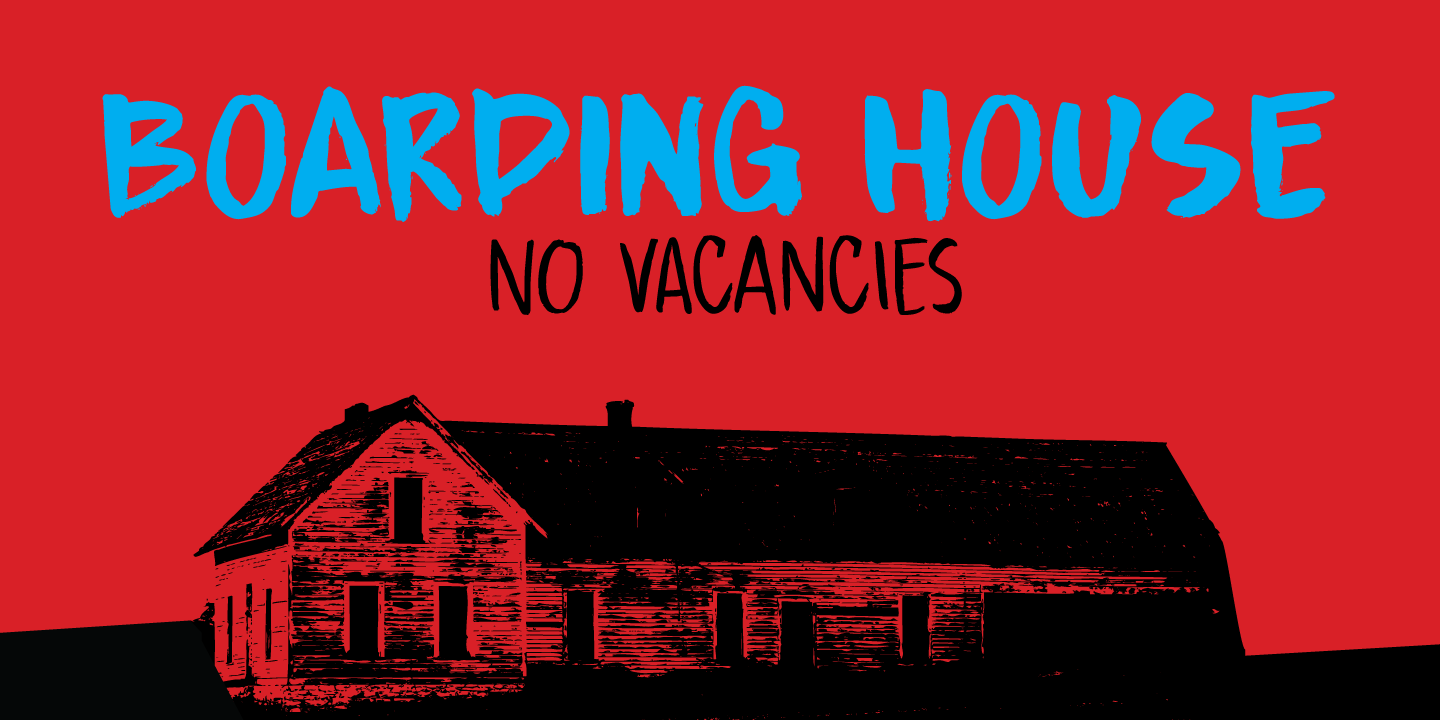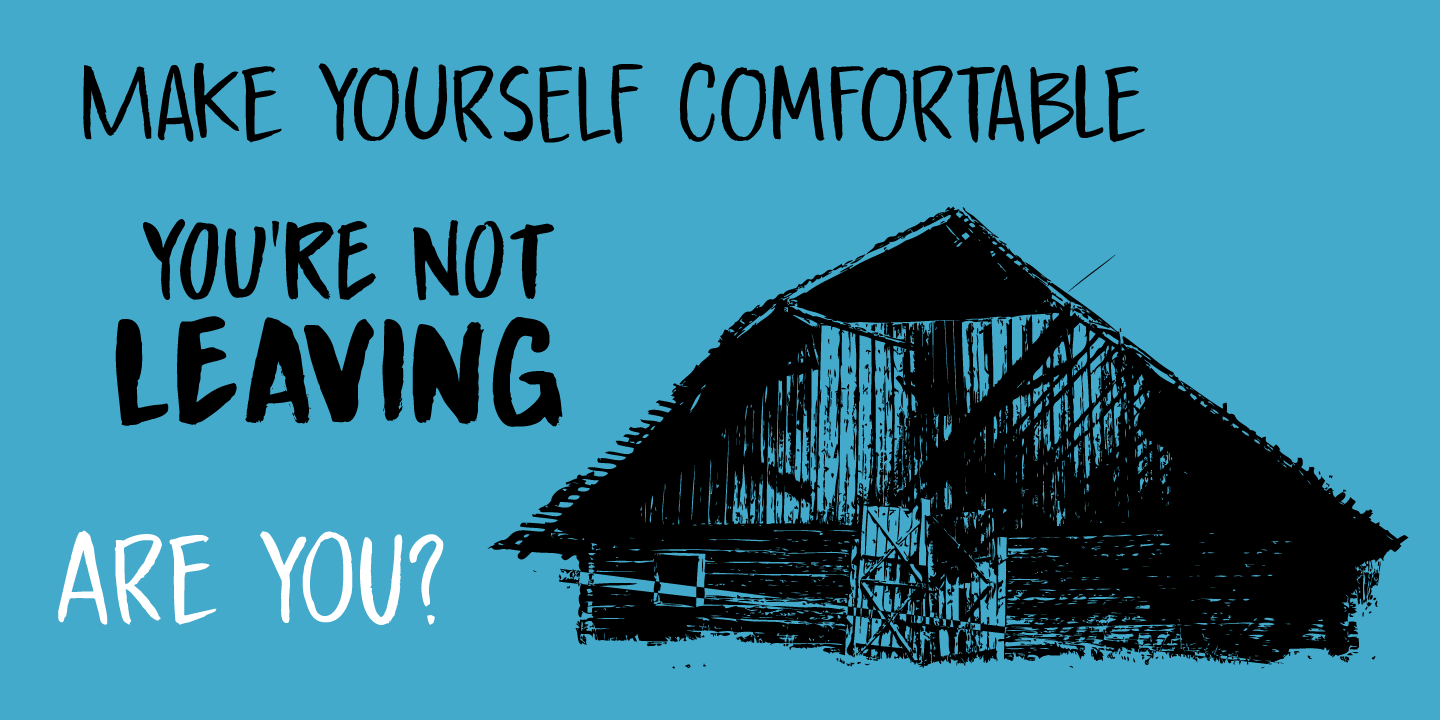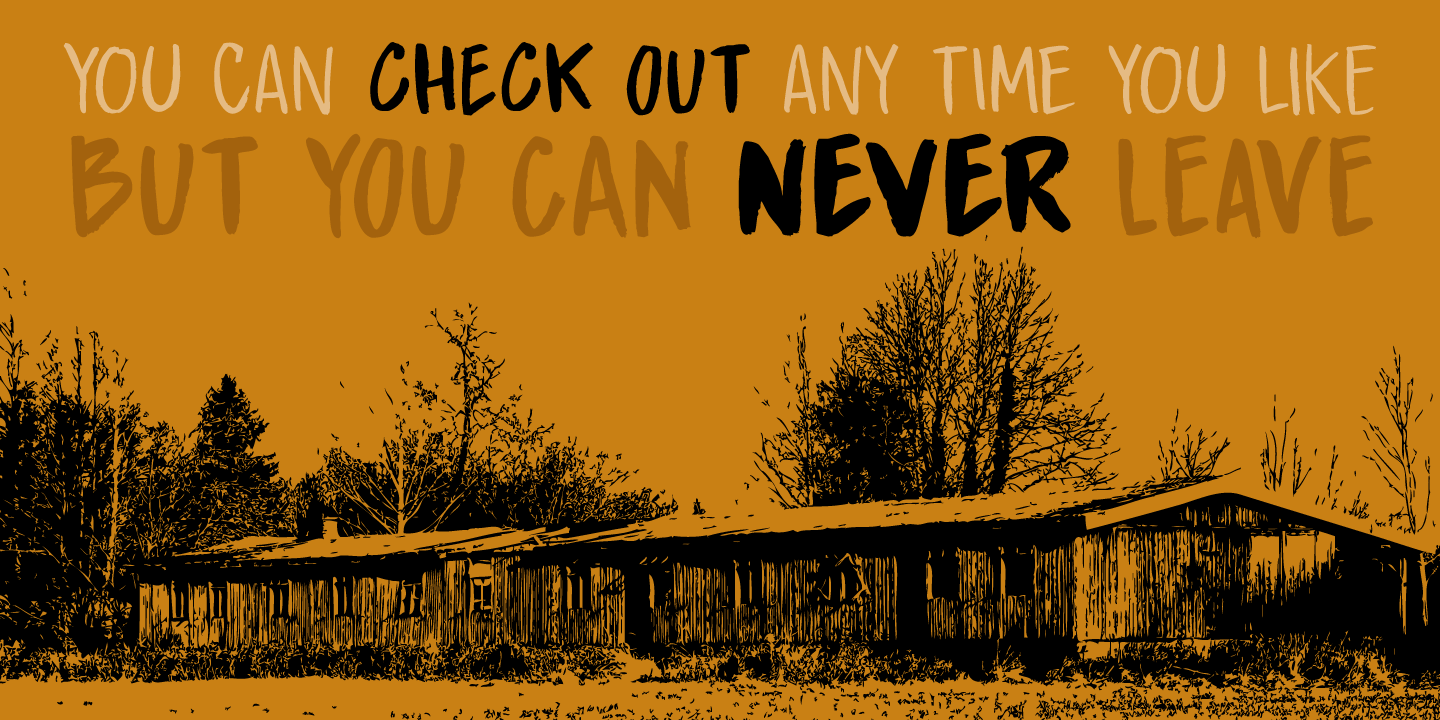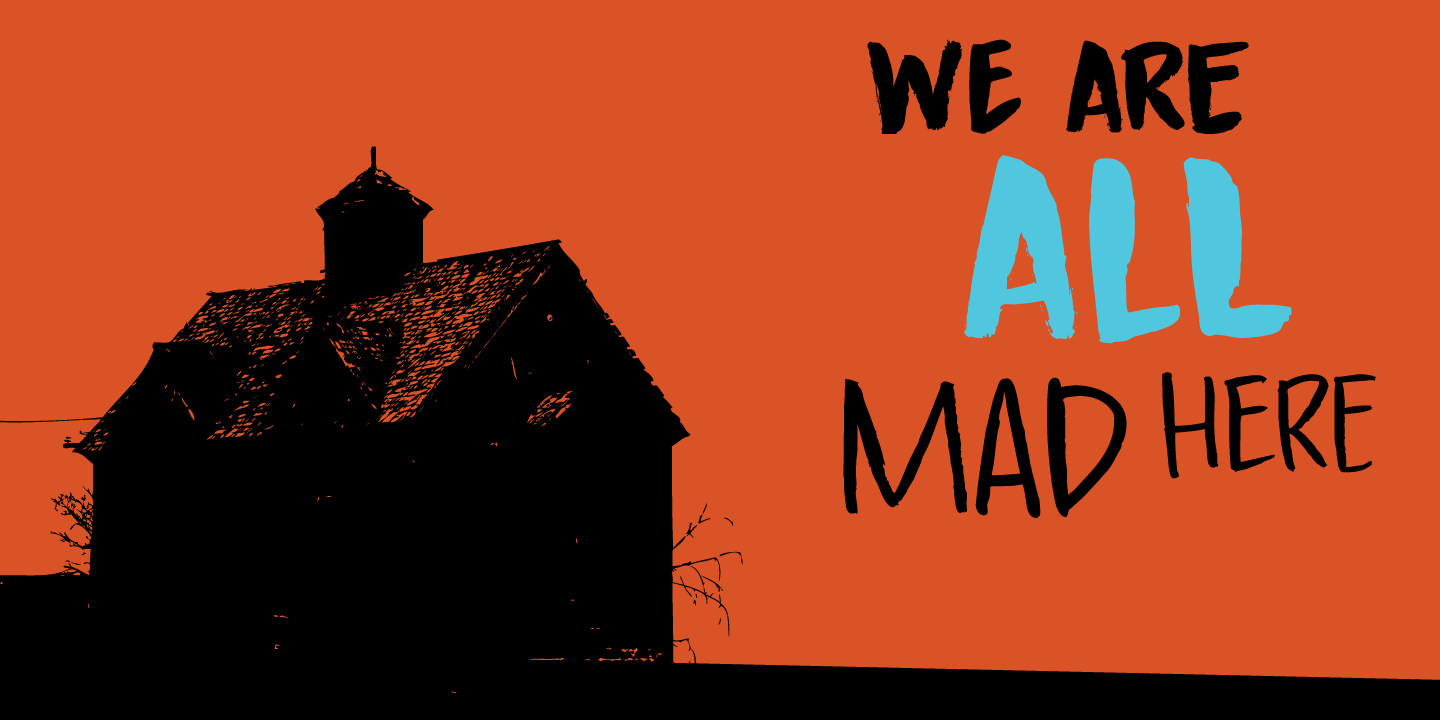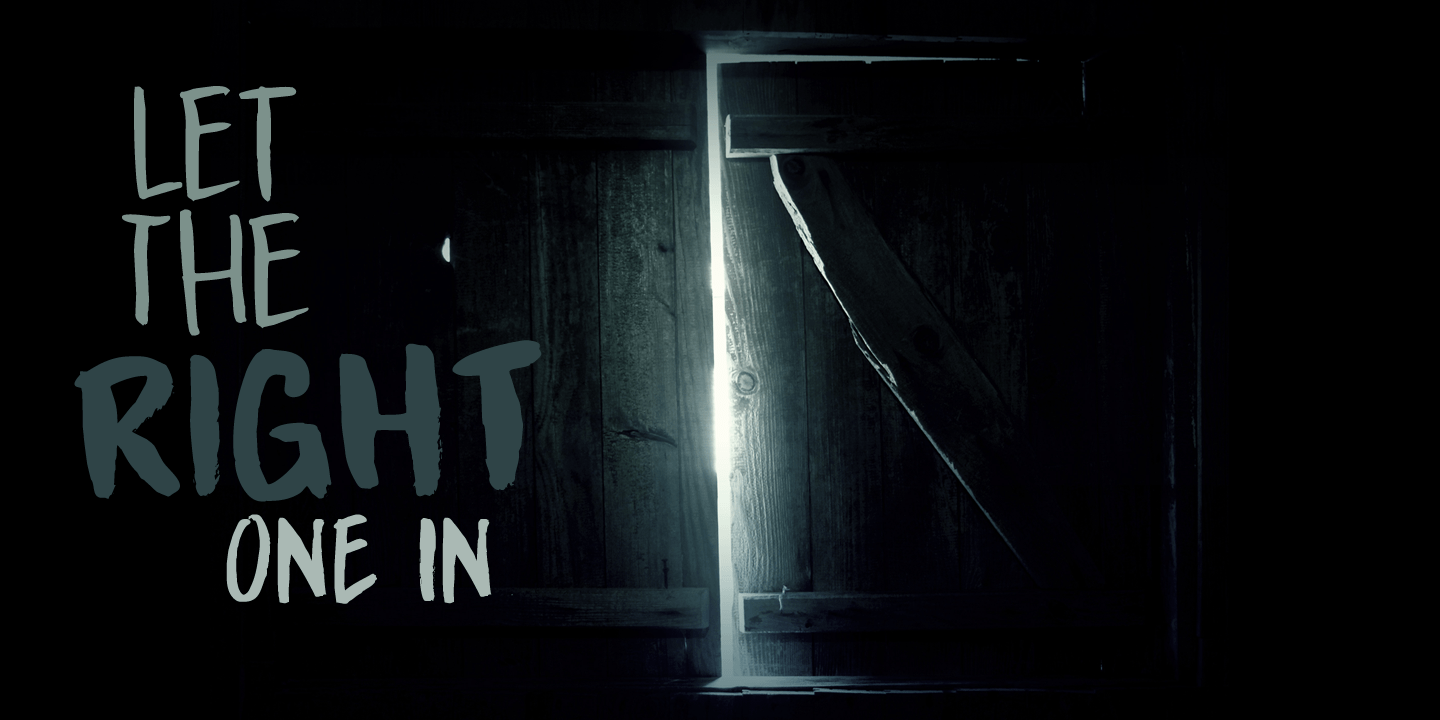
Boarding House
I have never stayed at a boarding house myself, but I've heard some horror stories. When I have finished painting the three fonts (using Chinese ink and a small brush), I didn't have to think long for a name. Boarding House family consists of three distinct hand painted fonts - the complement each other, but can be used separately as well. Use Boarding House for your halloween posters, mystery novels or websites. All fonts come with an attic full of diacritics.